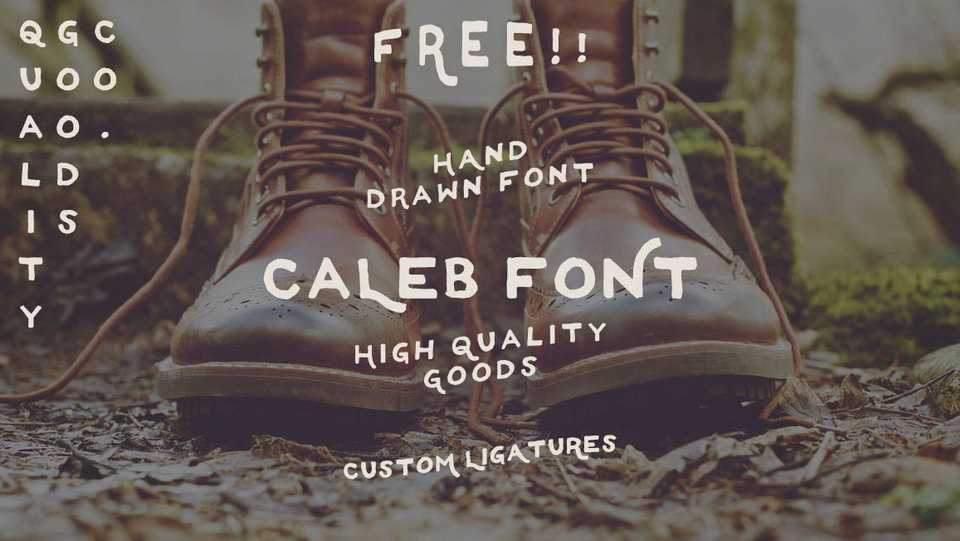
Download Caleb font, a hand drawn typeface with retro aesthetic, including alternate ligatures for several of the uppercase characters, just to achieve that vintage signage & hand drawn inspired feel.
Designer: Justin Greene